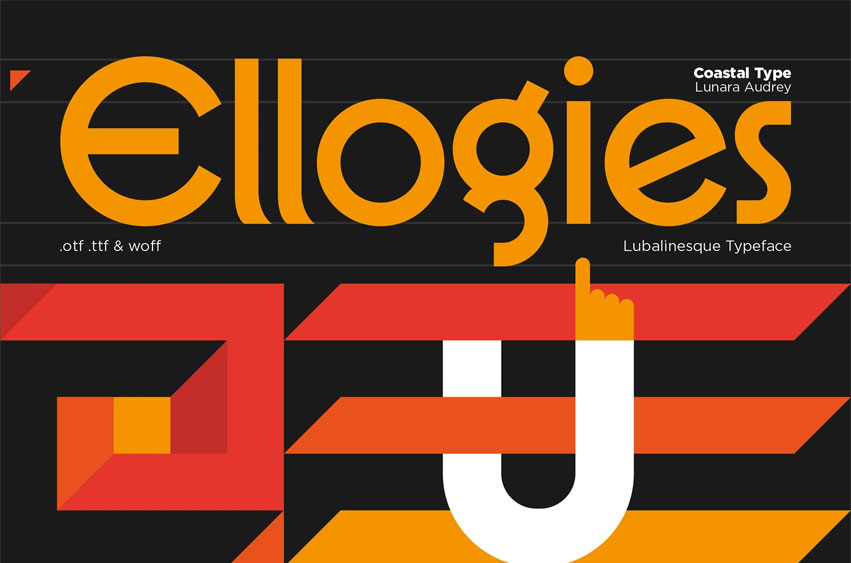
Ellogies Font is a bold and expressive display typeface inspired by the legendary works of Herb Lubalin and the minimalist geometry of pipeline-style letterforms. With sharp angles, dramatic curves, and a sense of retro-futuristic charm, Ellogies is crafted to make a statement.
- Lowercase
- Alternate Character
- Numerals & Punctuation